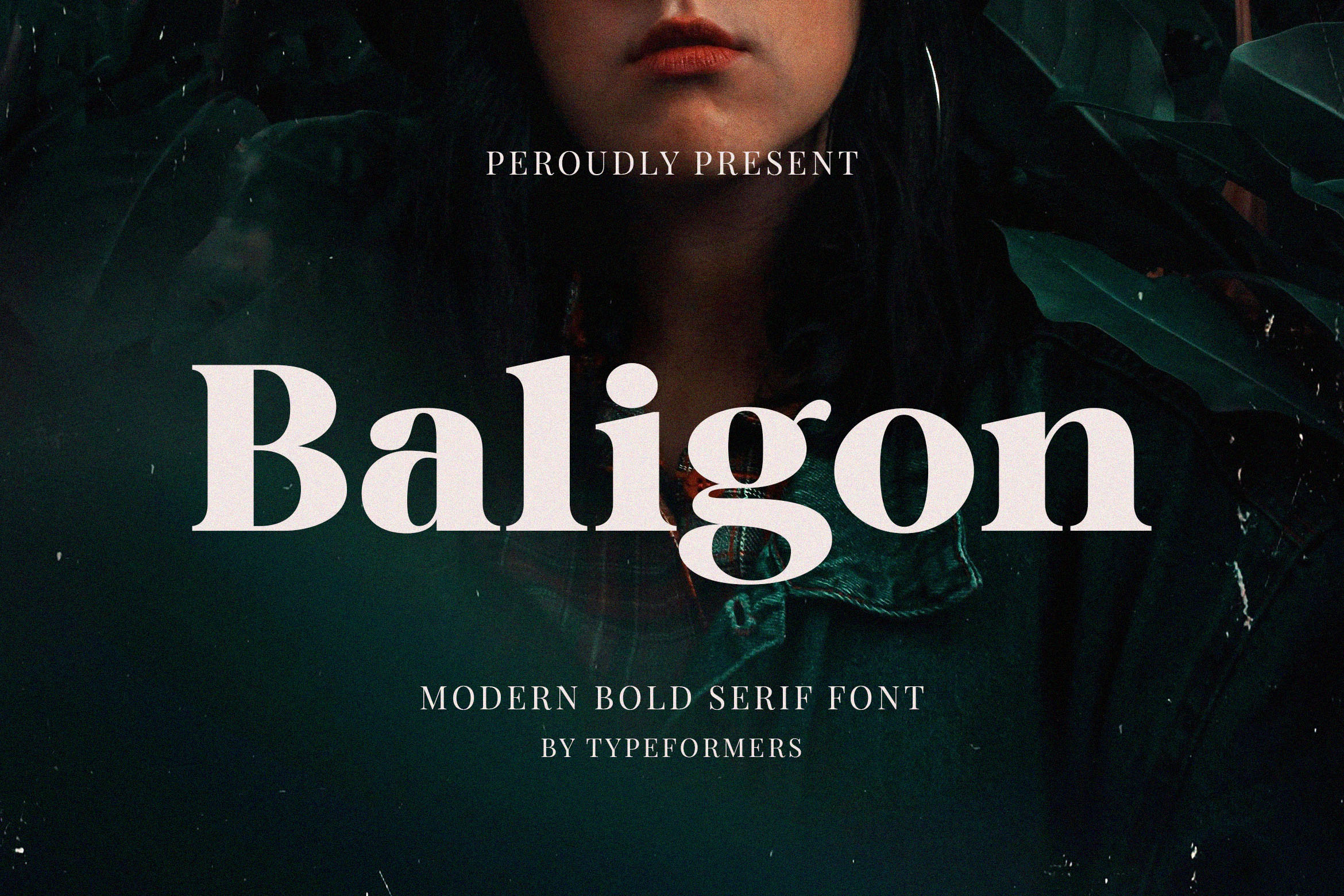
Introducing Baligon – Modern Bold Serif.
Baligon is a modern and simple font, best used as a display for headings, logos, branding, magazines, product packaging and invitations.